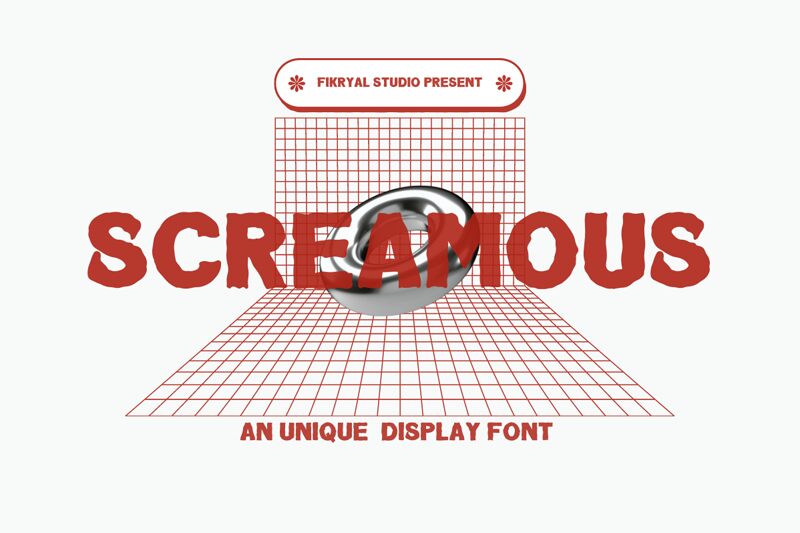
Screamous
Screamous, designed by Fikryal Studio, is a bold display font that effortlessly merges cartoonish charm with a thrillingly scary aesthetic. Its exaggerated forms evoke a playful sense of fear, making it ideal for projects that demand attention and excitement. The unique shapes and striking weight draw the viewer in, while the jagged edges and dynamic contours create a sense of movement and energy.
This font is perfect for Halloween-themed designs, spooky event promotions, or any creative endeavor that aims to blend fun with fright. Whether used in comic book covers or as eye-catching headlines on posters, Screamous transforms ordinary text into an engaging visual experience, ensuring your message resonates with intrigue and enthusiasm.